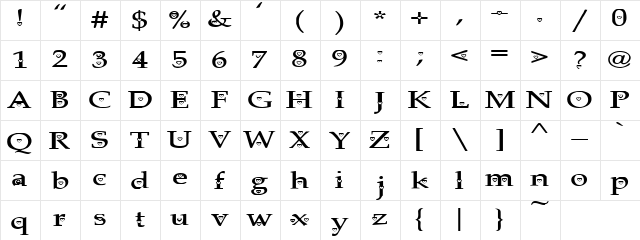
AnniesHearts Regular
Design Context for AnniesHearts Typeface
AnniesHearts is a composed and adaptable typeface that performs quietly and consistently across a wide range of design contexts.